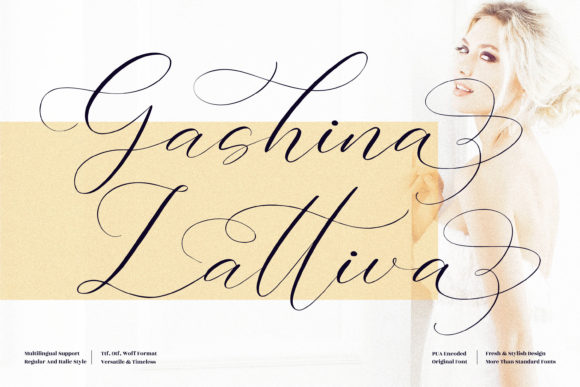
Unleash the Elegance: Introducing Gashina Lattiva — The Script Font That Embraces Grace
In a world craving visual allure, Gashina Lattiva emerges as a radiant script font, captivating hearts with its thin lettered charm and graceful strokes. Experience the allure of this meticulously crafted font, a brainchild of Perspectype, renowned for their dedication to typographic artistry.
Gashina Lattiva's slender lines dance across digital canvases, evoking a sense of sophistication and refinement. Its graceful curves invite you on a visual journey, leaving an indelible mark on the hearts of your audience. Prepare to be mesmerized as this font transforms your creative projects into masterpieces.
With Gashina Lattiva, you hold the key to unlocking a world of creative possibilities. Embrace its versatility and watch it flourish in a myriad of applications. Whether you're crafting elegant wedding invitations, designing awe-inspiring stationary art, or captivating social media posts, Gashina Lattiva effortlessly elevates your creations.
Picture the allure of your wedding invitations, adorned with Gashina Lattiva's delicate strokes, hinting at the joyous occasion to come. Envisage the beauty of your stationary art, infused with a timeless elegance that speaks to the soul. Your social media posts will radiate with an unmatched charm, captivating followers with their visual splendor.
Gashina Lattiva is not merely a font; it's an expression of your artistic vision. Its graceful lines and sweeping curves lend a touch of sophistication to any project, transforming ordinary words into captivating narratives. Unleash your creativity and witness the wonders it brings to life.
So, surrender to the allure of Gashina Lattiva and let its graceful strokes weave their magic into your creative endeavors. Embrace the elegance, revel in the sophistication, and unlock a world of limitless possibilities.